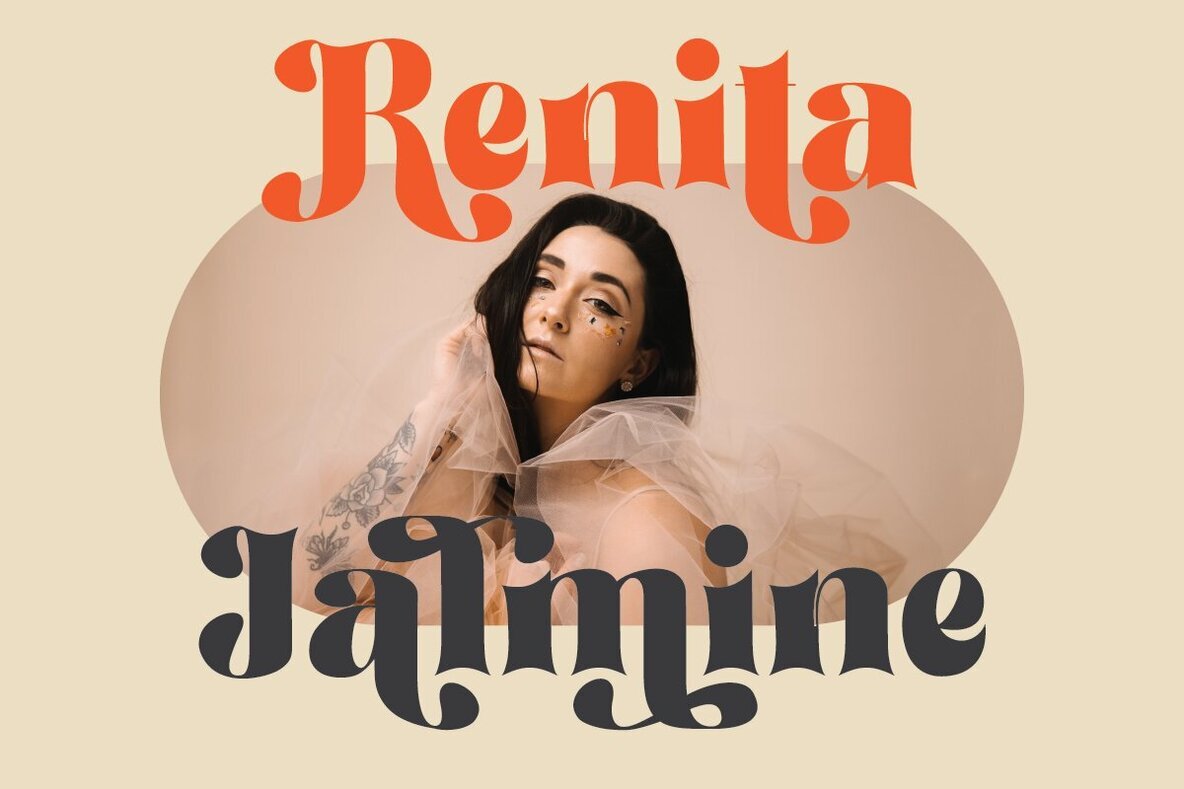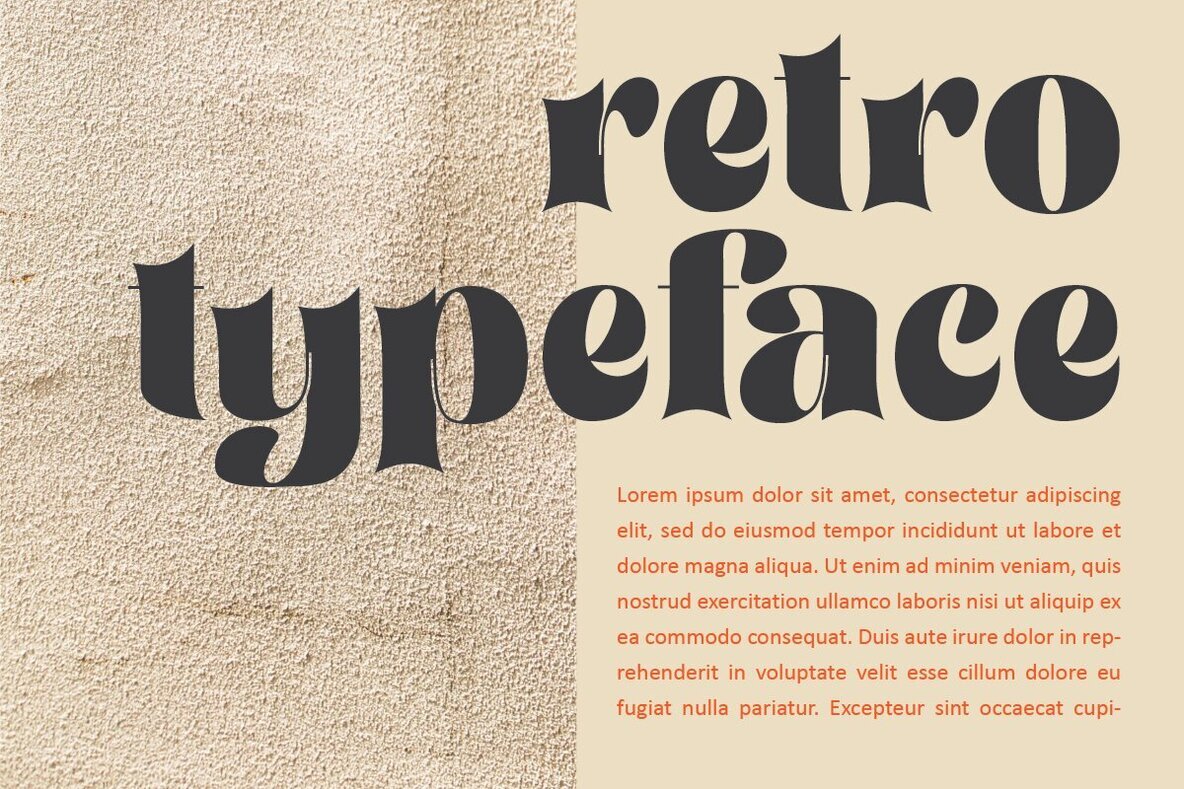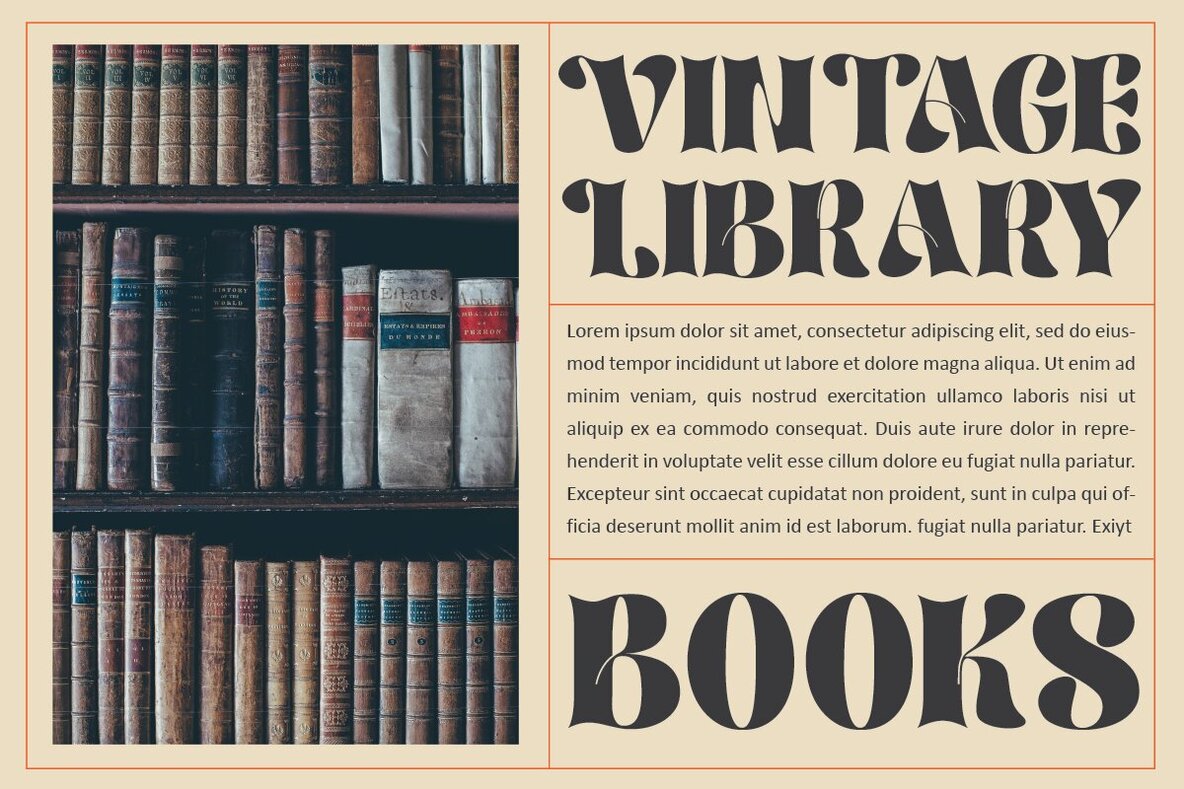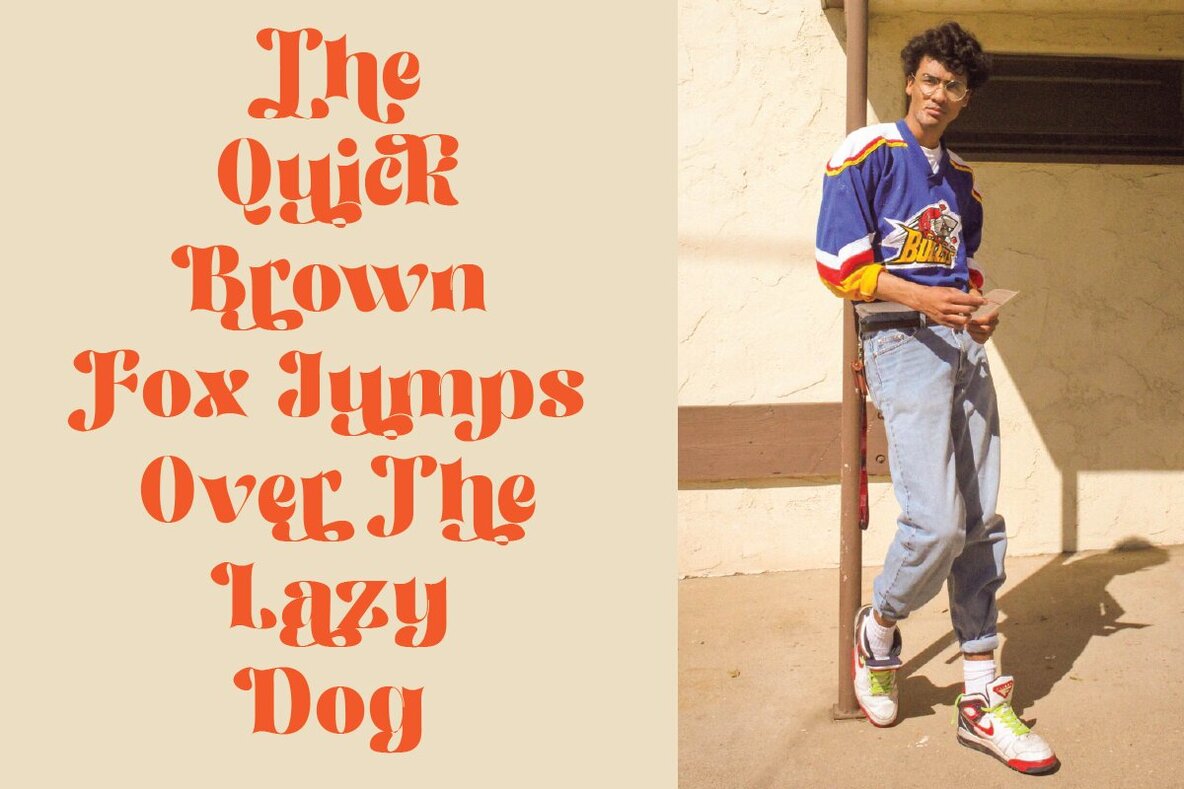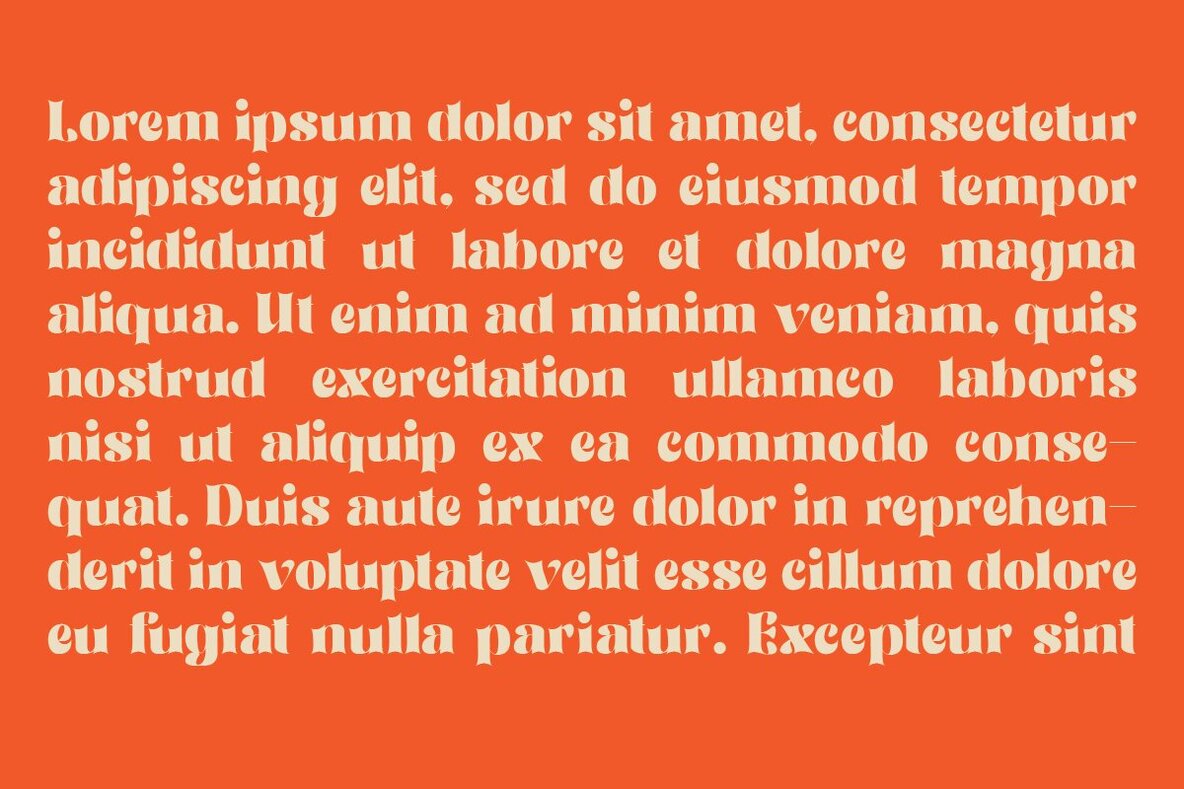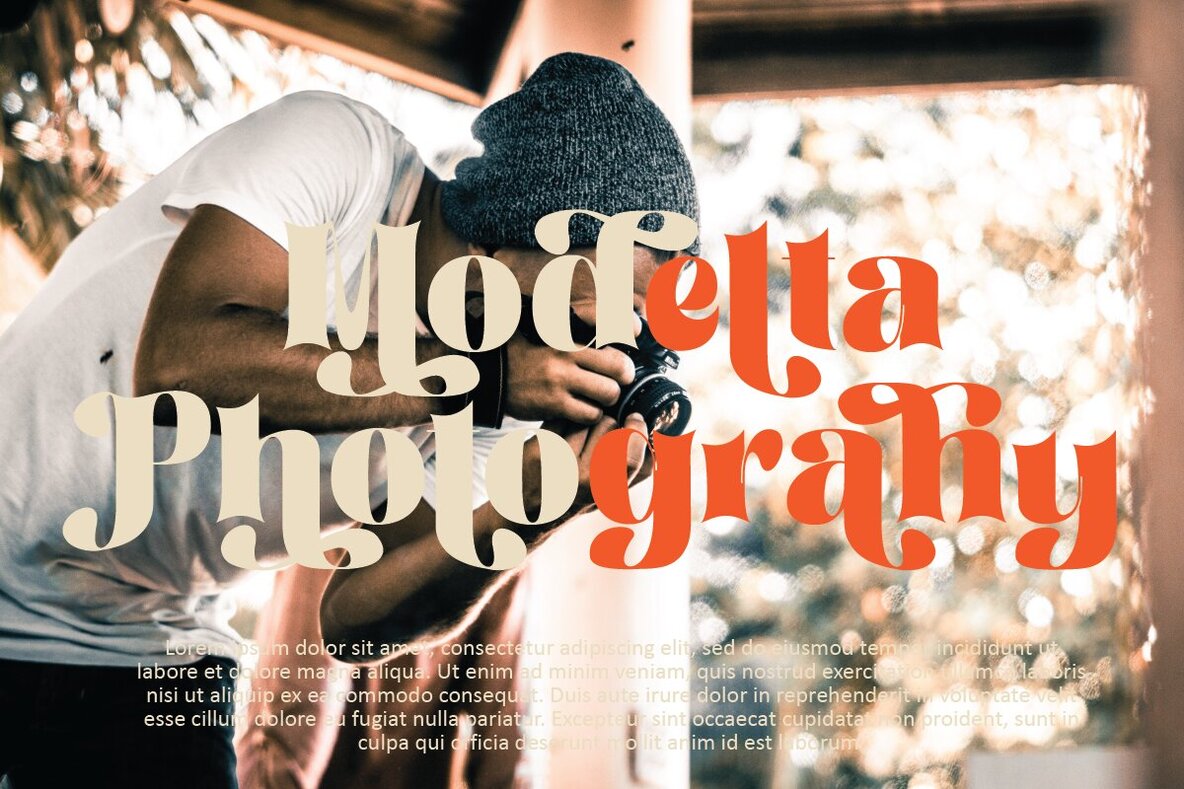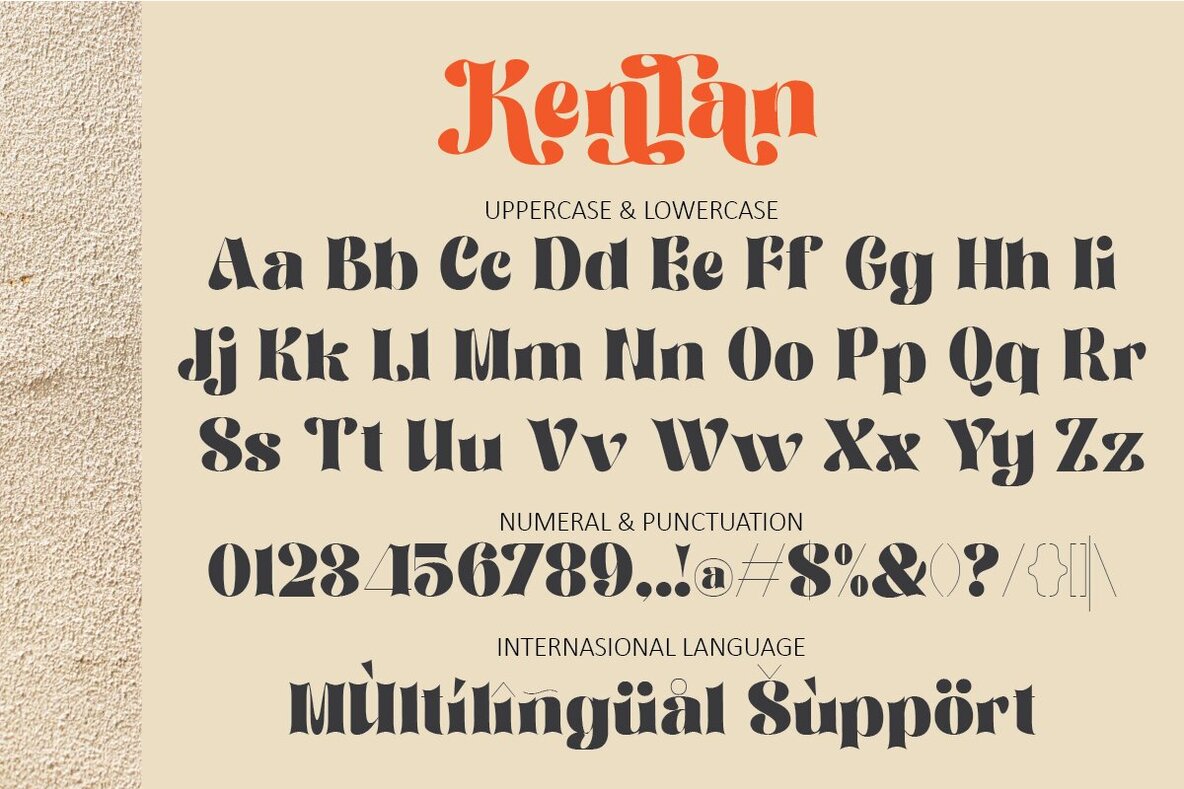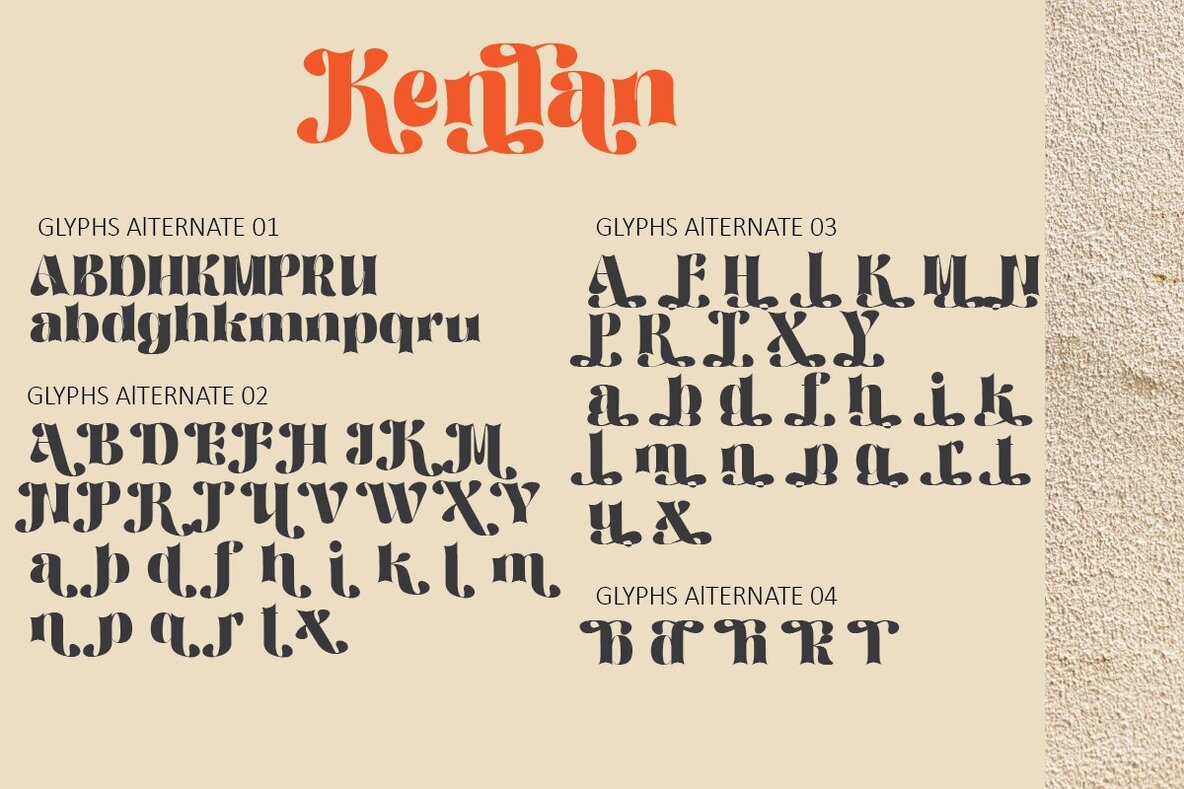
Kenlan Font
Kenlan Bold
Kenlan captures attention with its modern bold serif design, expertly crafted to provide your projects with a sophisticated edge. This typeface offers a wealth of alternate characters and ligatures, along with unique glyphs and ornamental features. Whether used in large or small sizes, its versatility shines through, making it an ideal choice for editorial projects, logo design, clothing branding, and product packaging. Perfectly suited for magazine headers or as a striking text overlay on any background image, Kenlan adapts beautifully to diverse design contexts.Kenlan: A Bold Serif With Versatile Charm